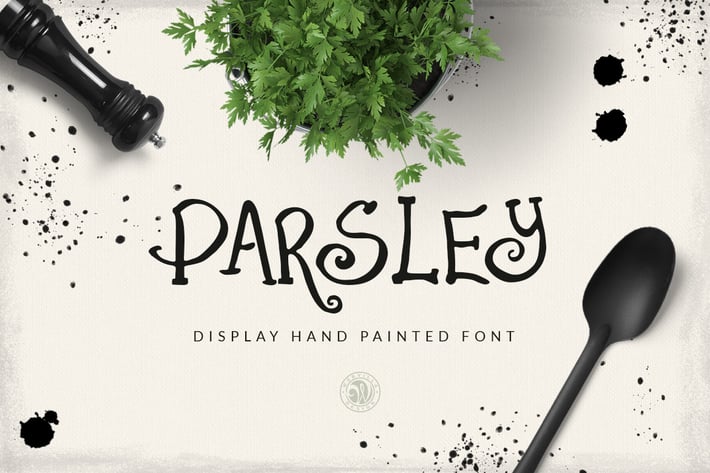
Parsley Font
Parsley - hand lettering display font. Ideal for invitations, logos, branding, blogs, handmade craft items, scrap booking, printed paper items and more.
- all caps font, numbers, punctuation